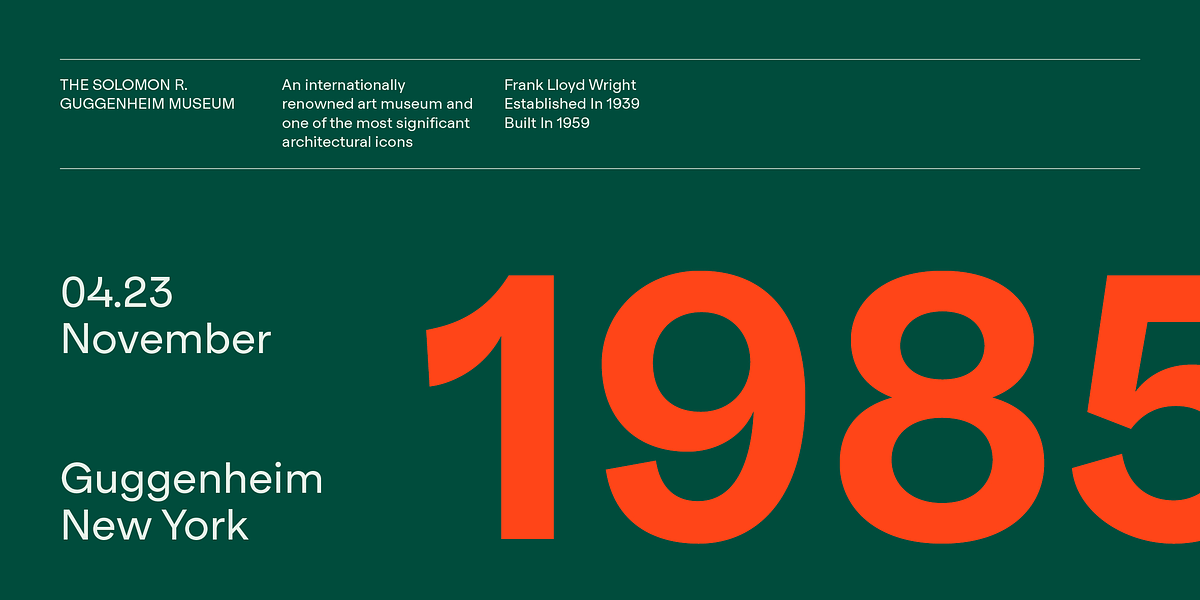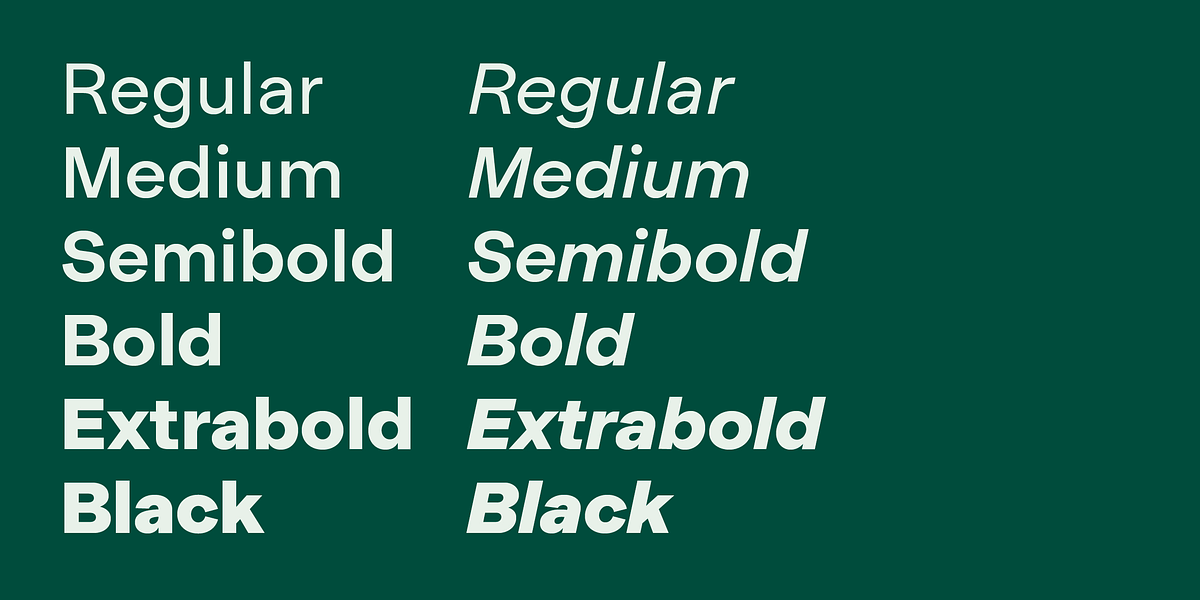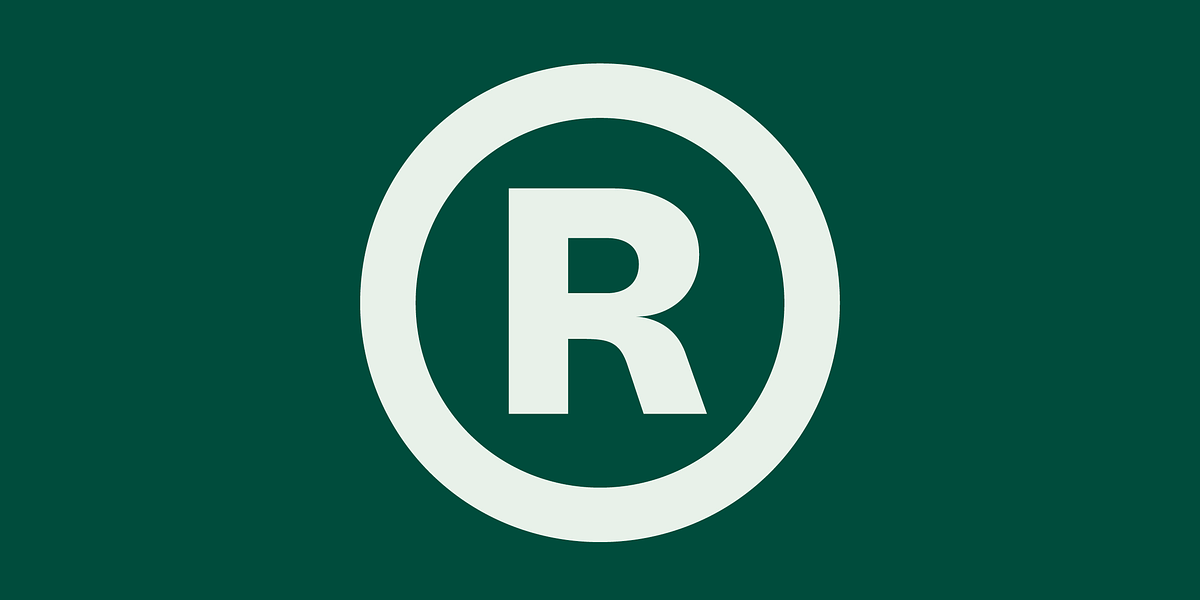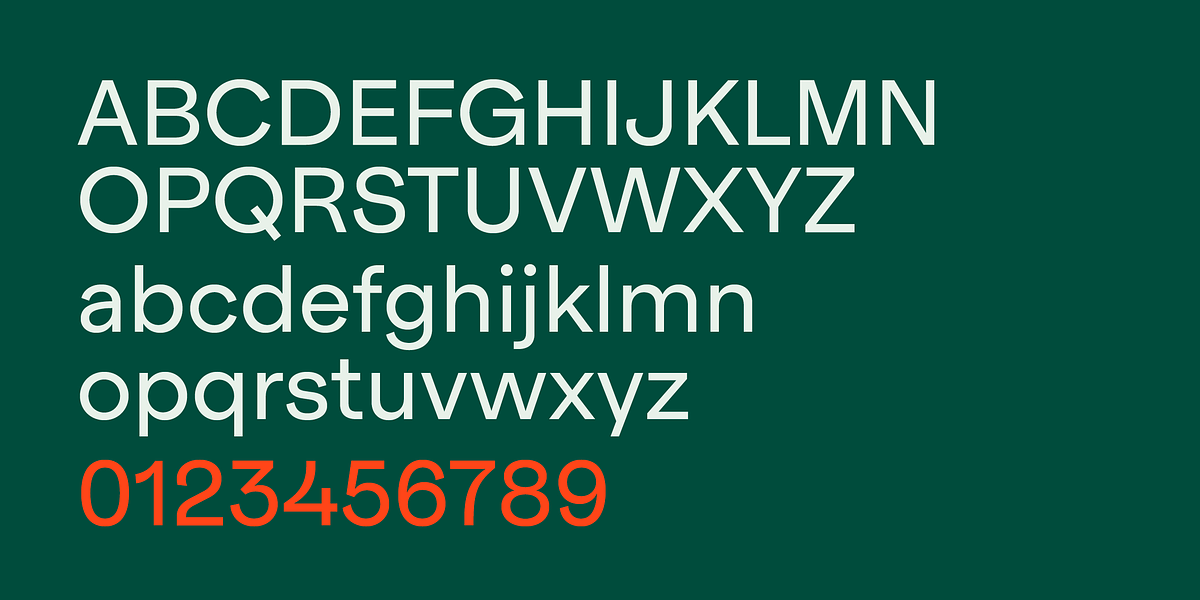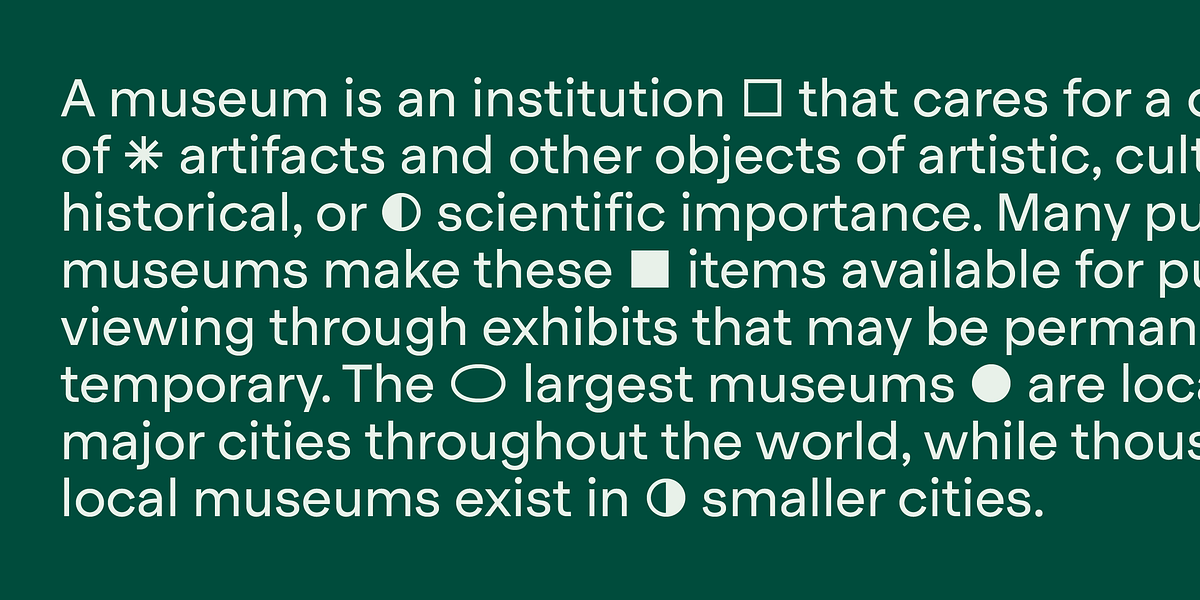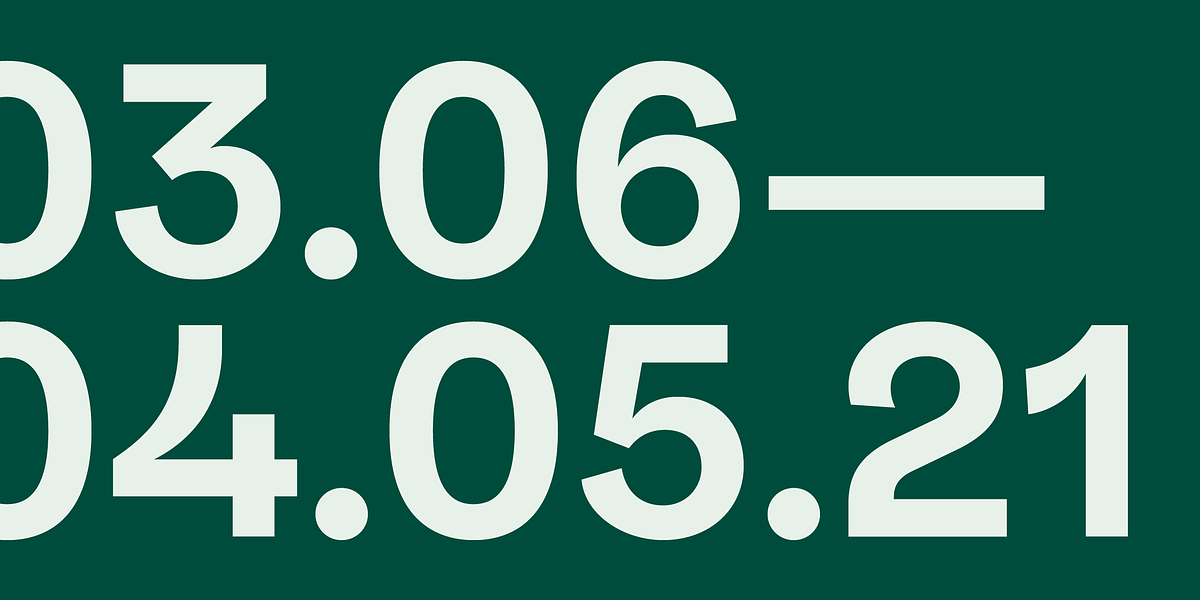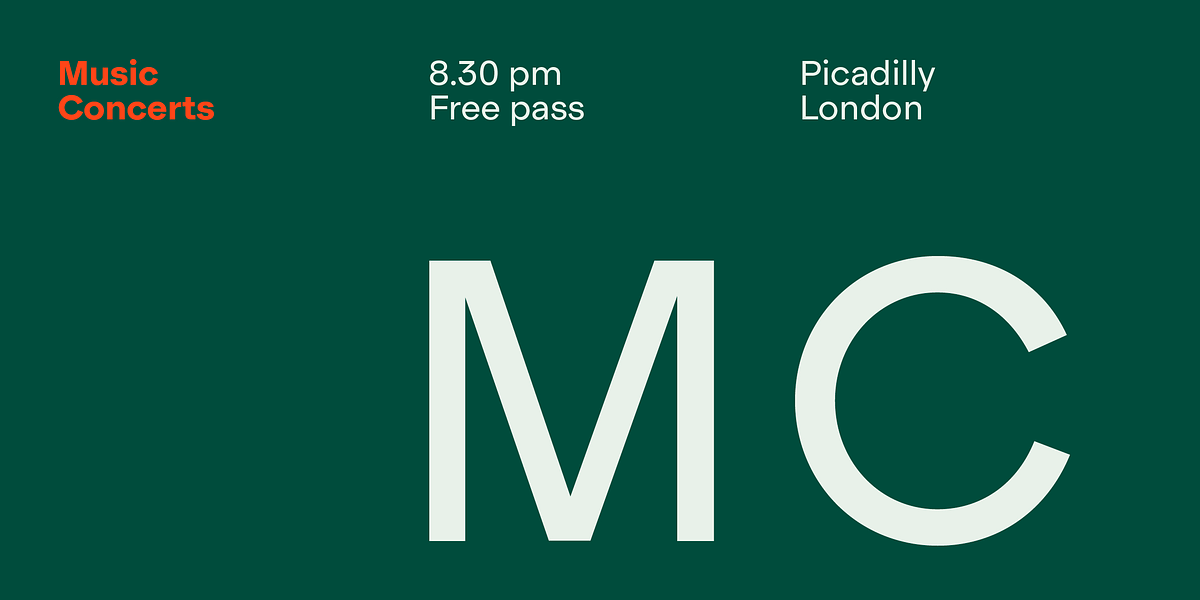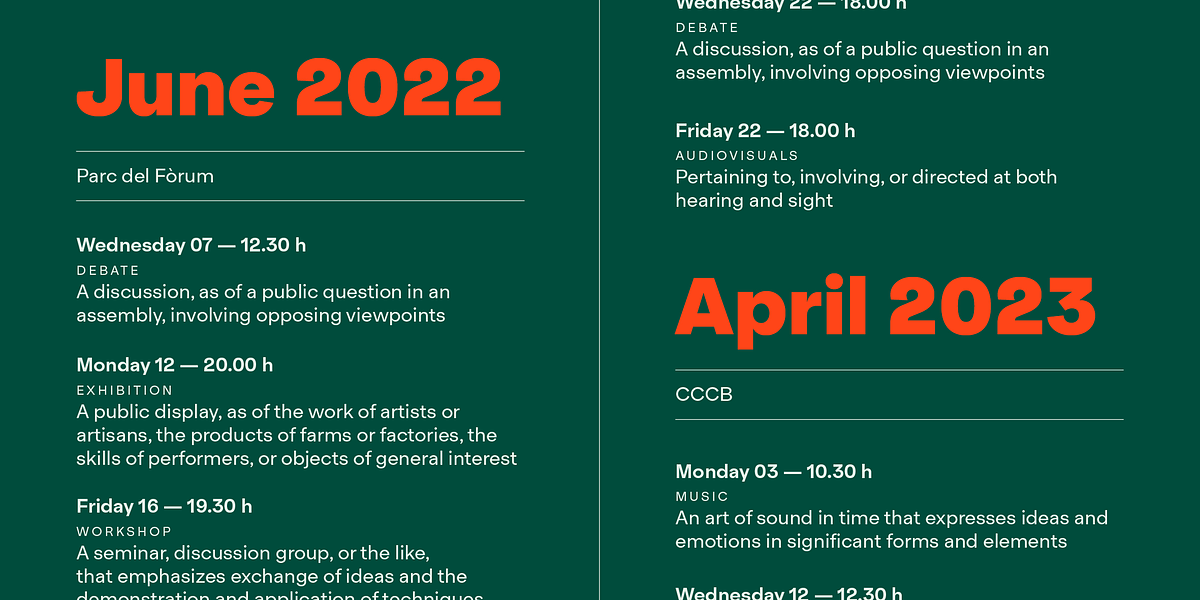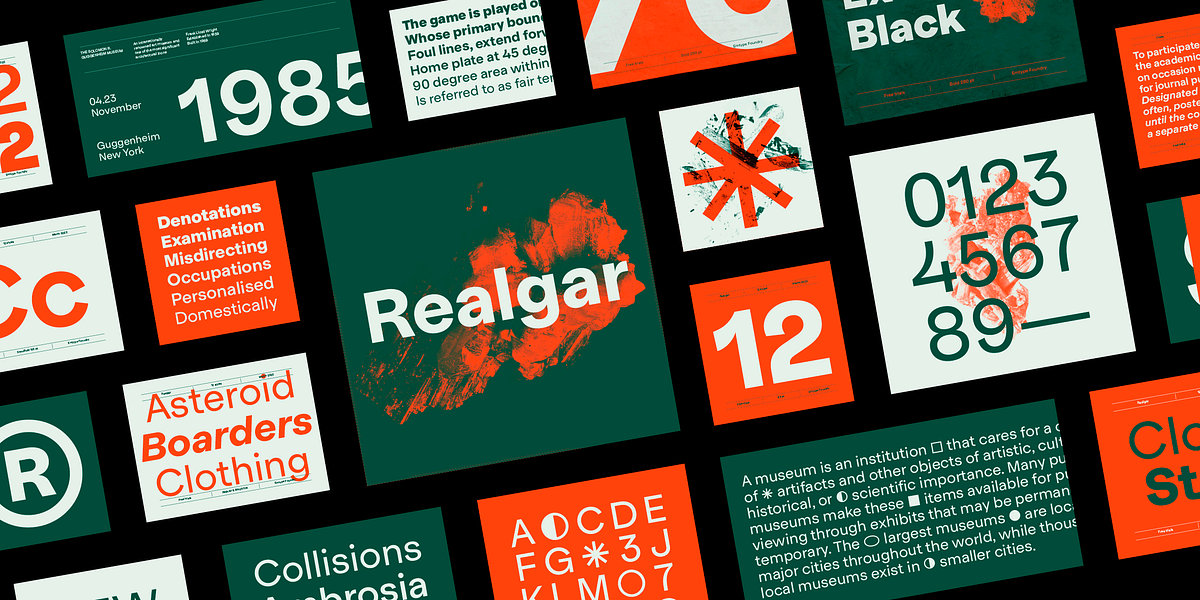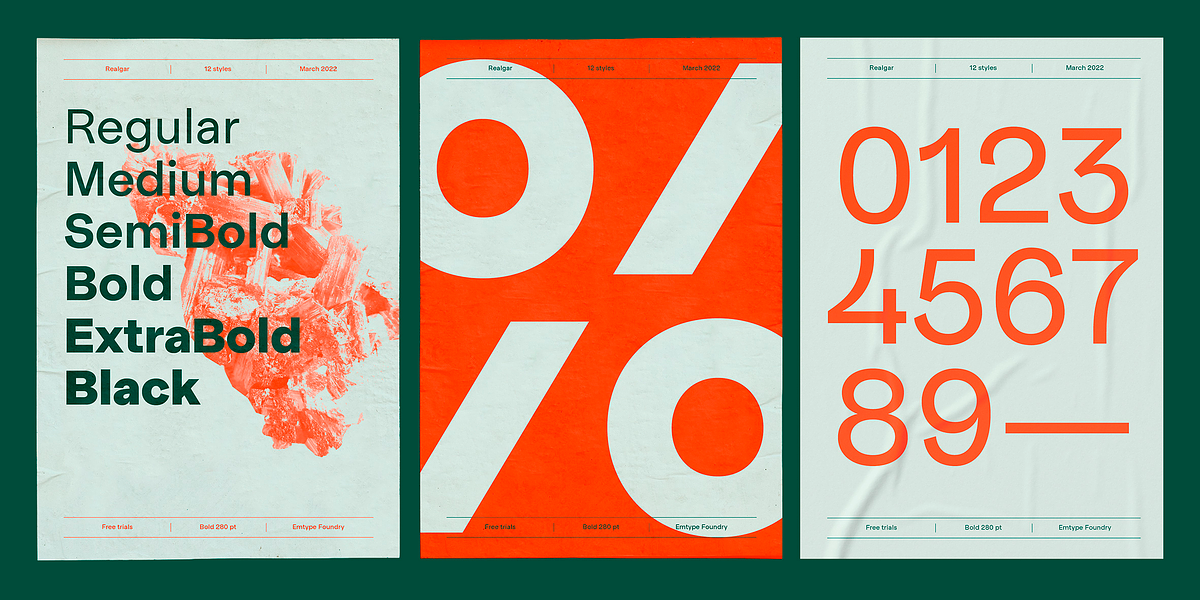
Realgar
Realgar is a geometric sans-serif typeface designed to be both neutral and distinctive. Its wide proportions, closed apertures, and rounded dots contribute to a friendly and contemporary aesthetic. The idiosyncratic numbers add a unique touch, making Realgar stand out from other sans-serif fonts. A Variable Font version allows for greater customization and flexibility.